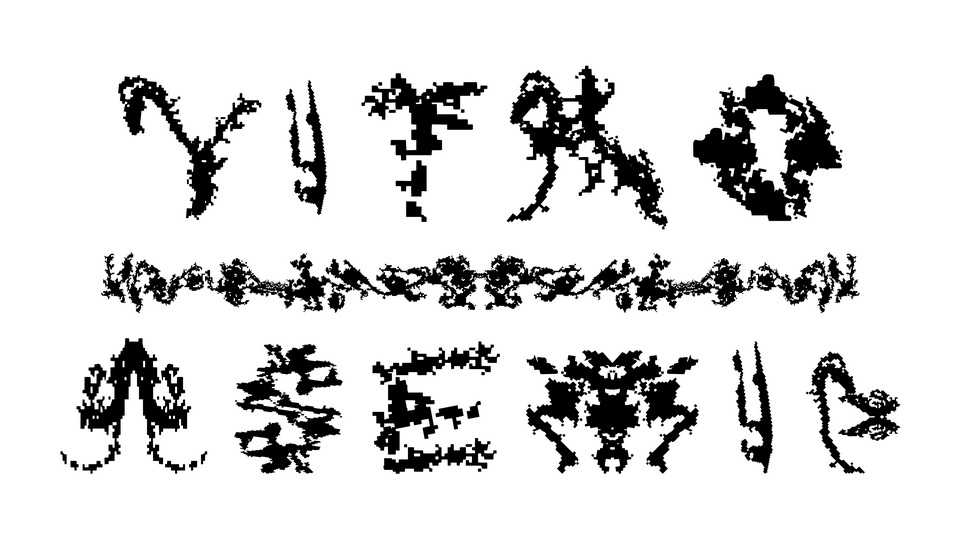
Download Vitro-Asemic font, a typeface cultivated with mouth bacteria, agar, Photoshop, Illustrator, and FontForge. The font was created to utilize the asemic and cognitive estrangement in order to generate further ecological grounding.